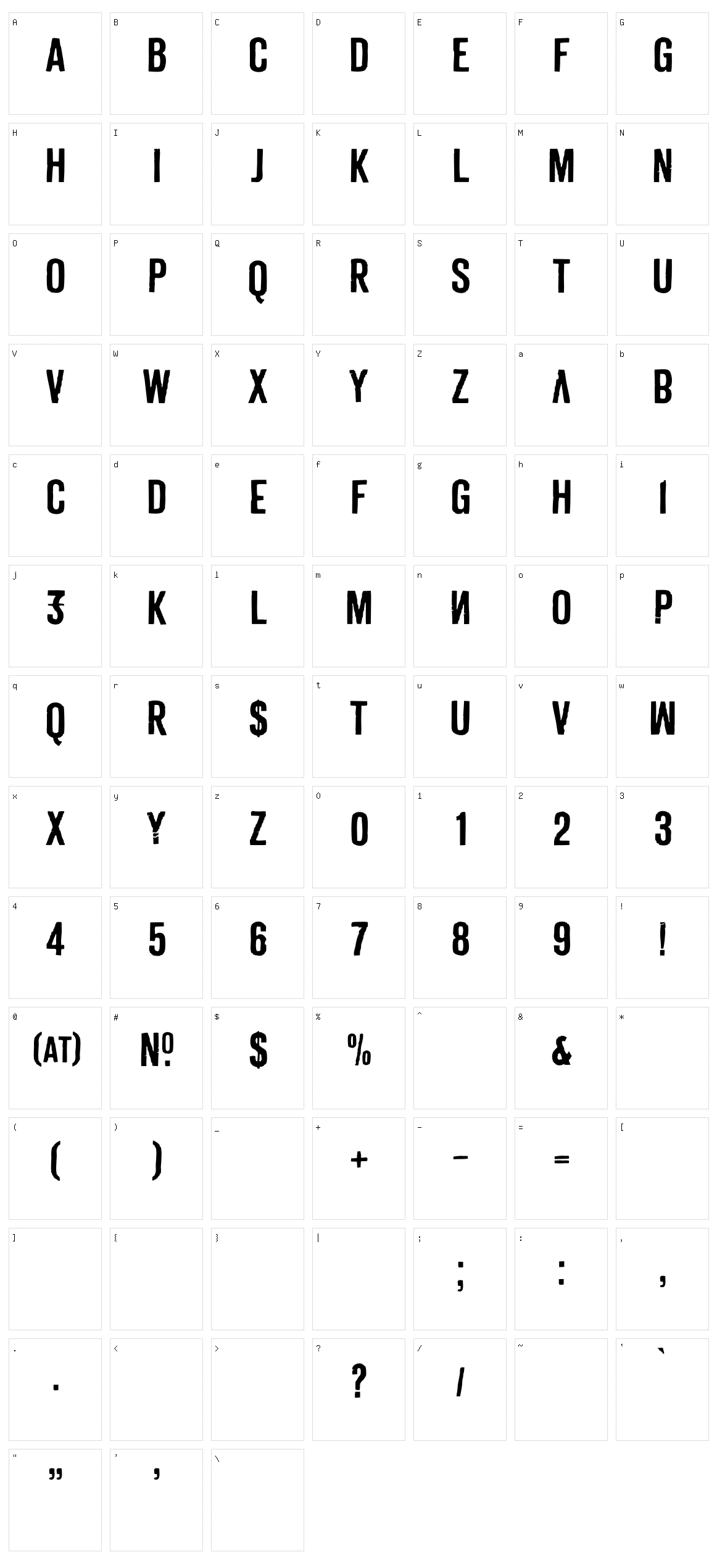
The free font Derivat is carefully designed by Thomas Mettendorf, showcasing a thoughtful balance of creativity and usability and falls under the Eroded font style. When you download the ZIP file, it contains only 103.61 KB of font files, making it lightweight and quick to download. Please review the license details below to understand permitted usage and distribution rights. If license information is not available, we recommend using this font for personal projects only or contacting the author directly for commercial usage permissions.